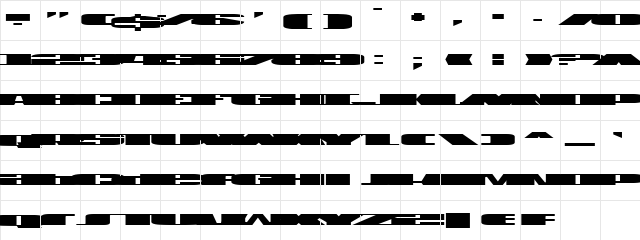
U.S.A. Expanded Expanded
Style: Expanded
Design Context for U.S.A. Expanded
U.S.A. Expanded is a composed and adaptable typeface that performs quietly and consistently across a wide range of design contexts.
Pro Tip: Use U.S.A. Expanded in both headline and body roles to test its range before committing to a single application.